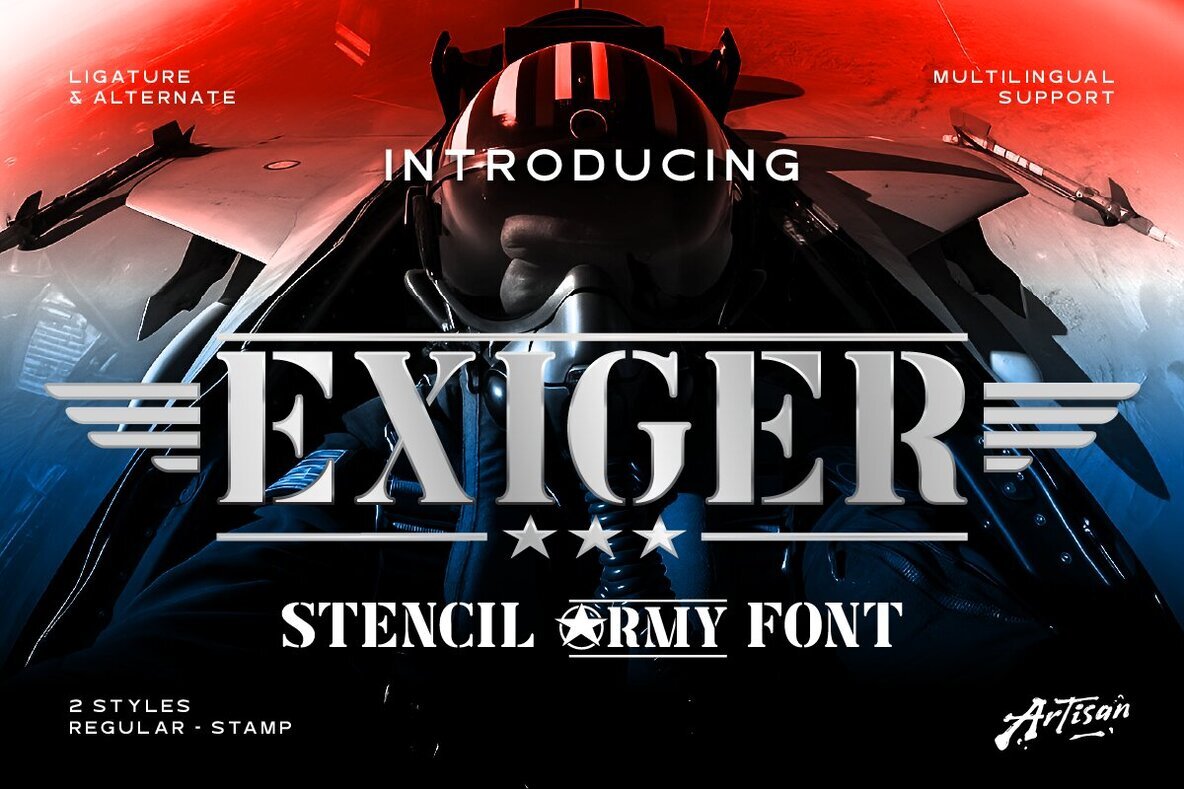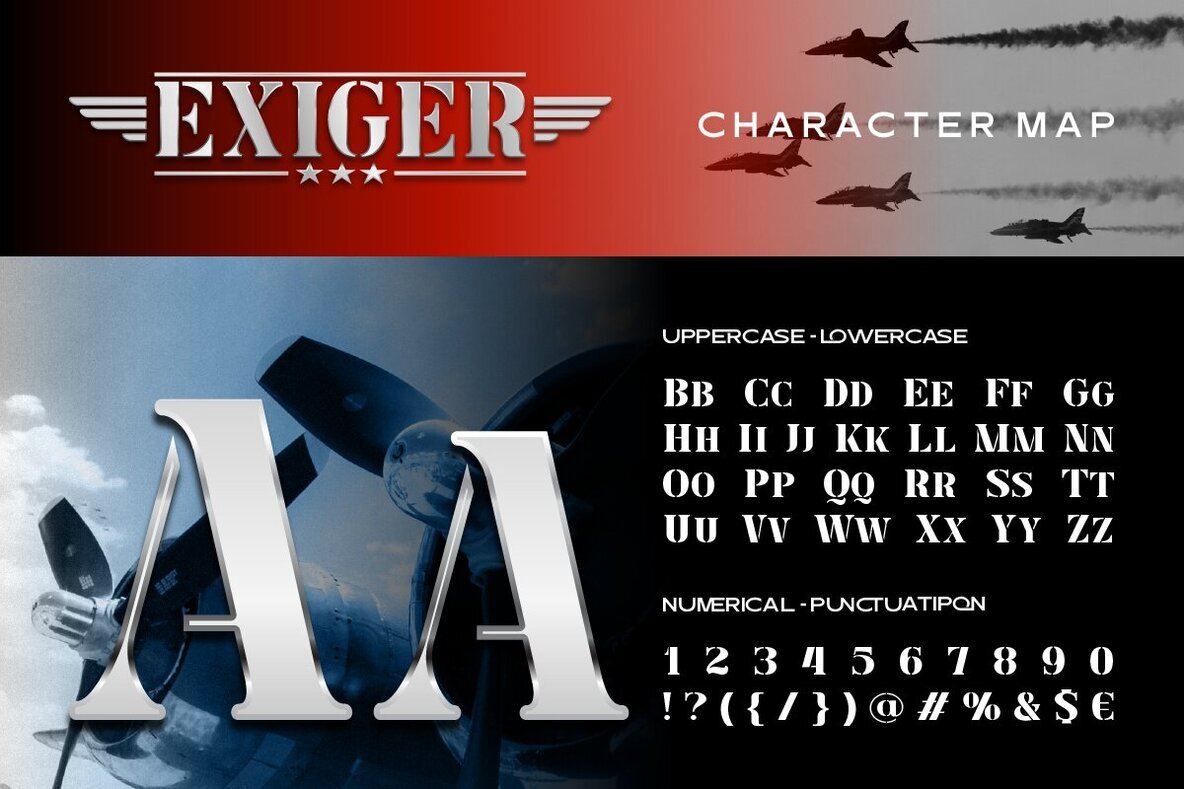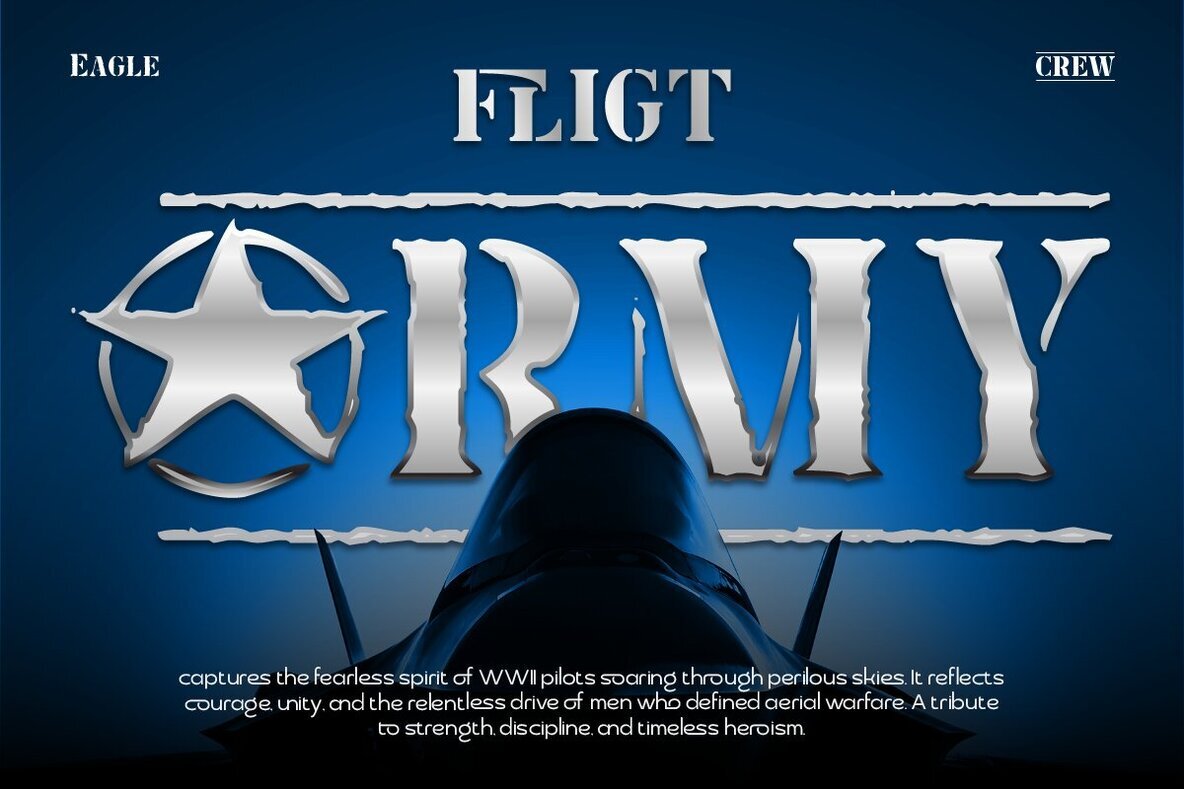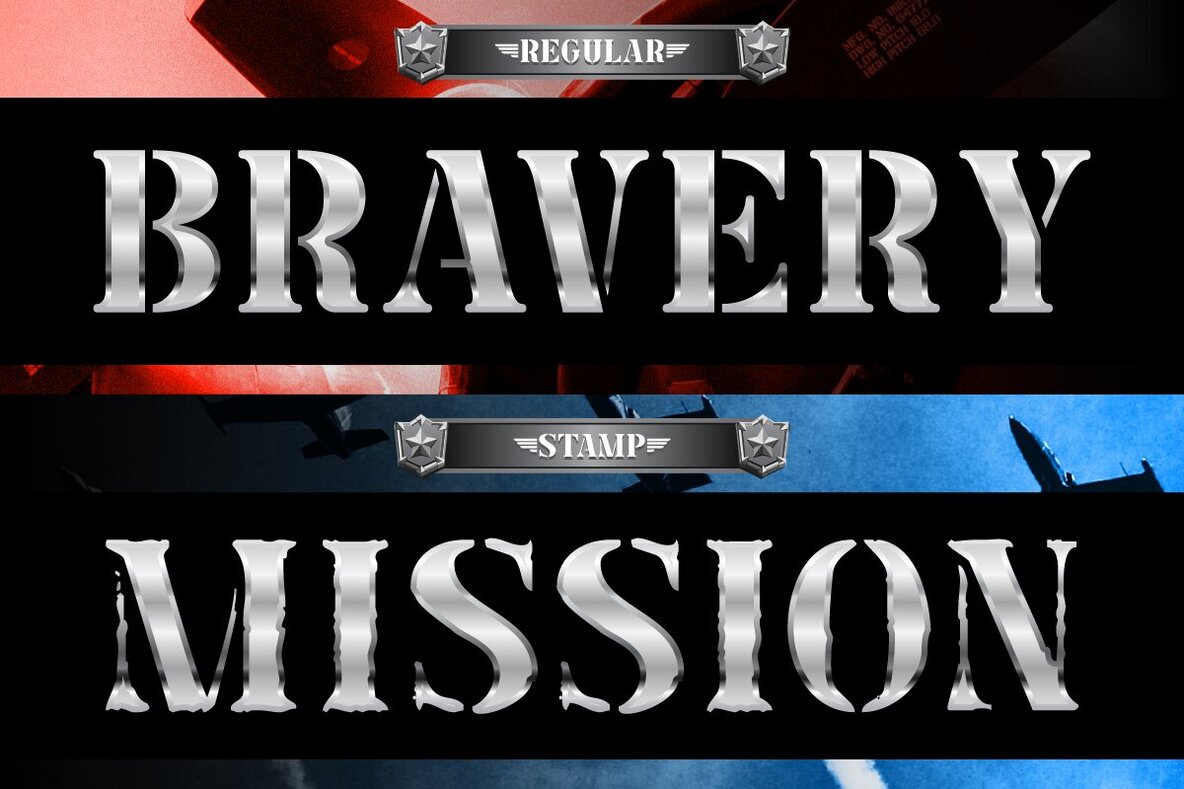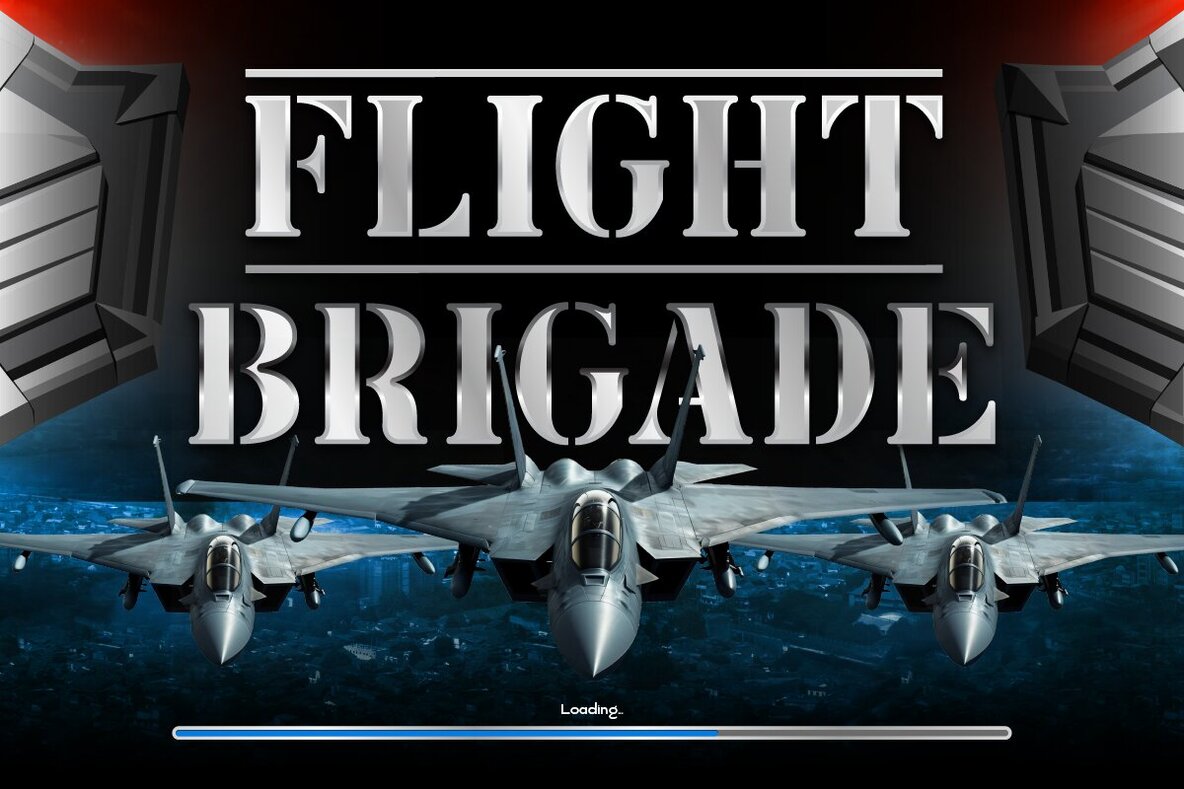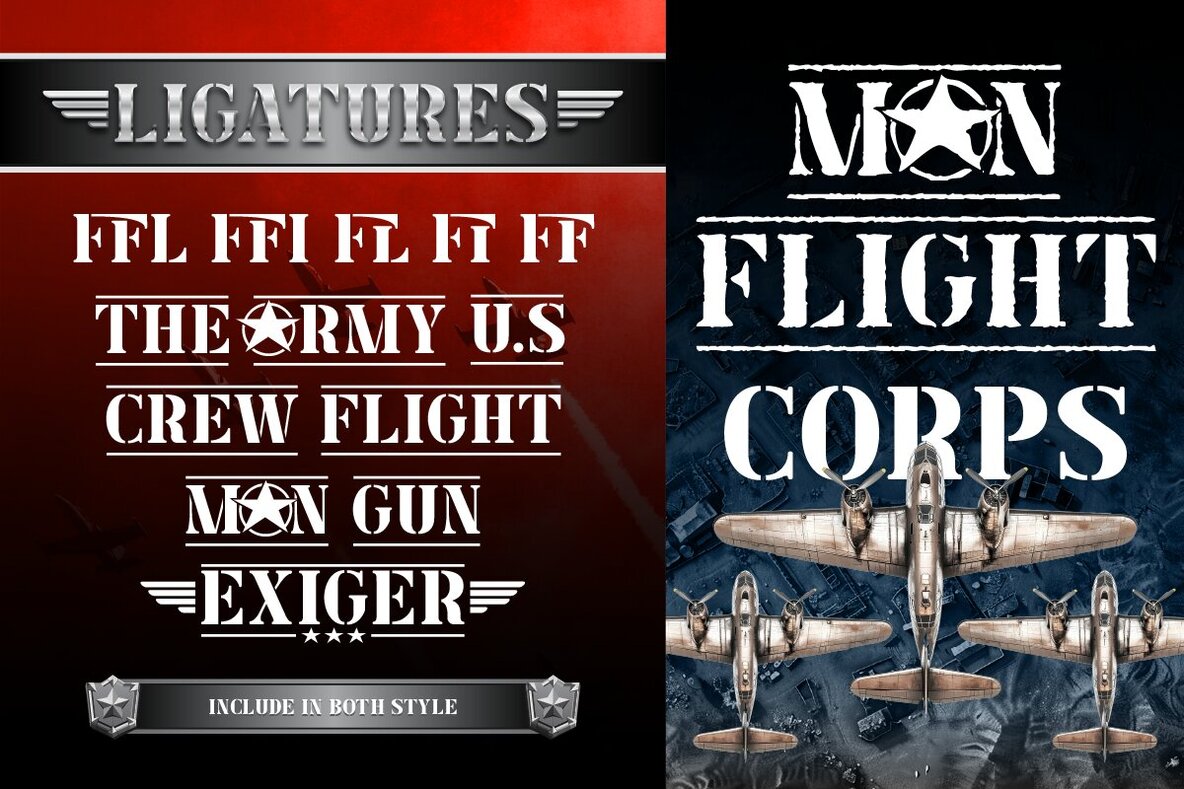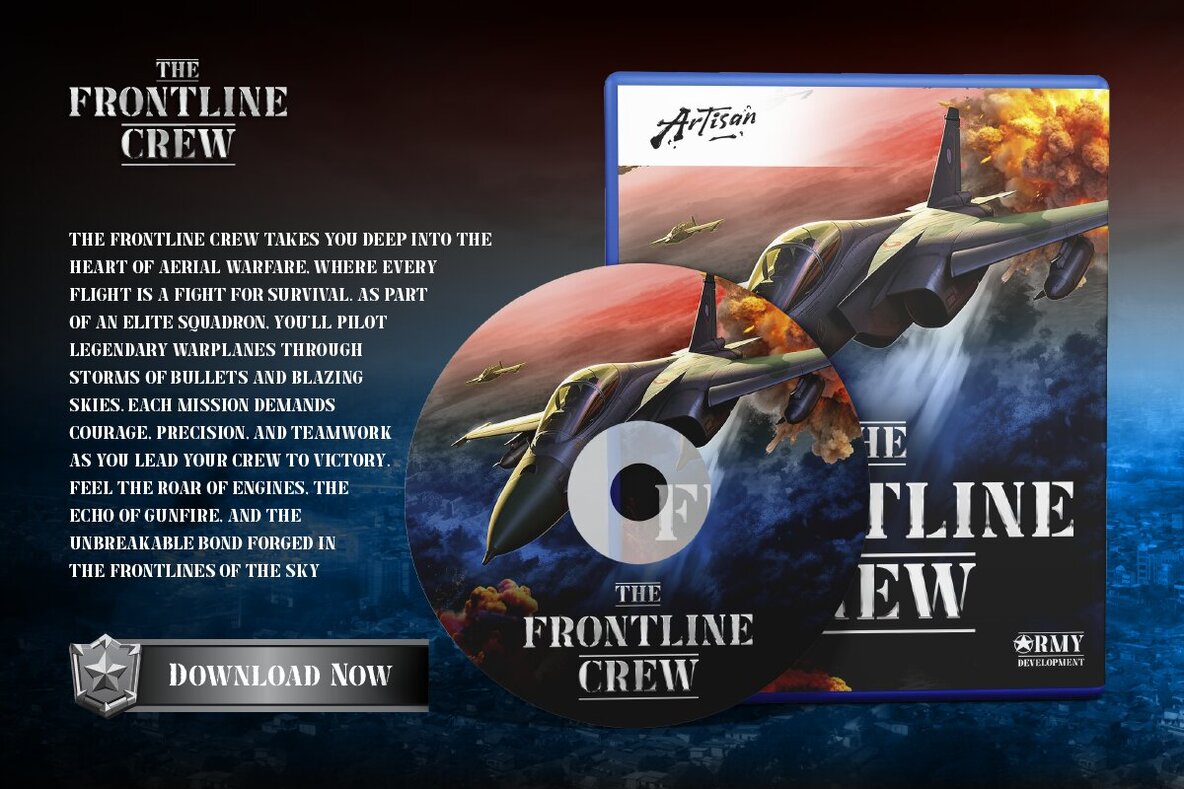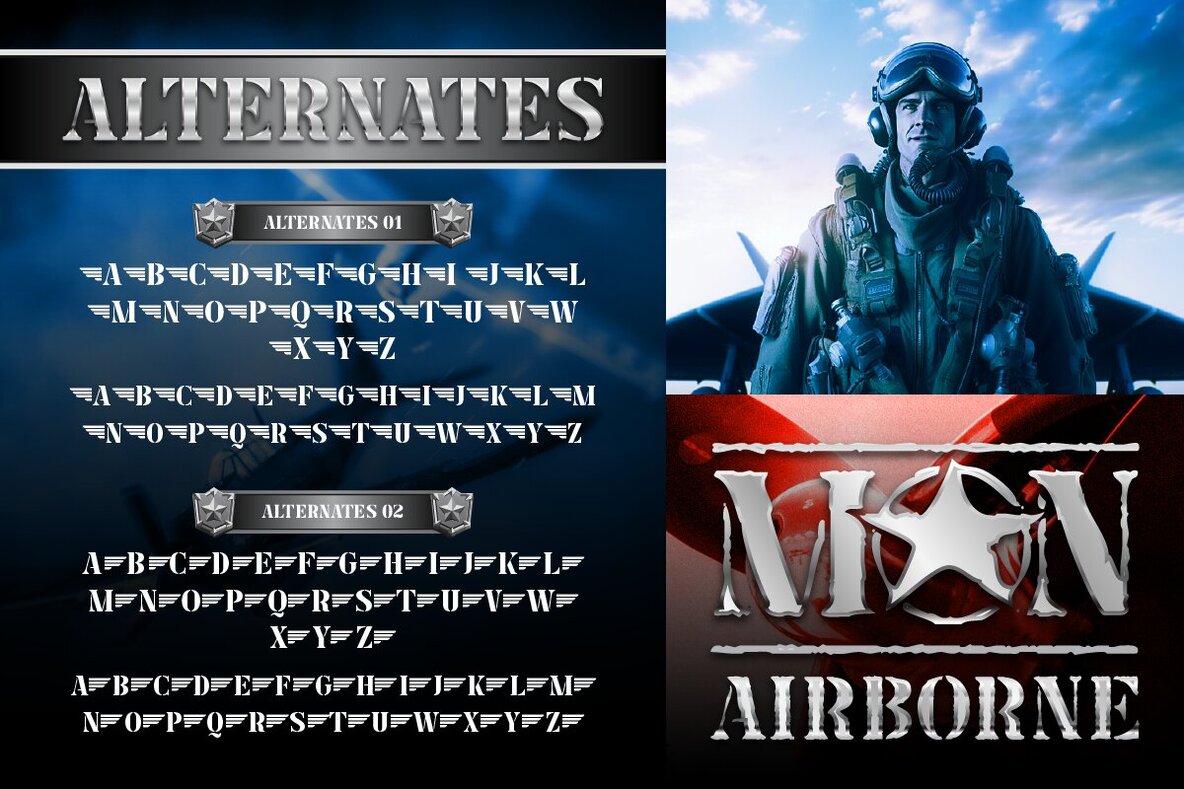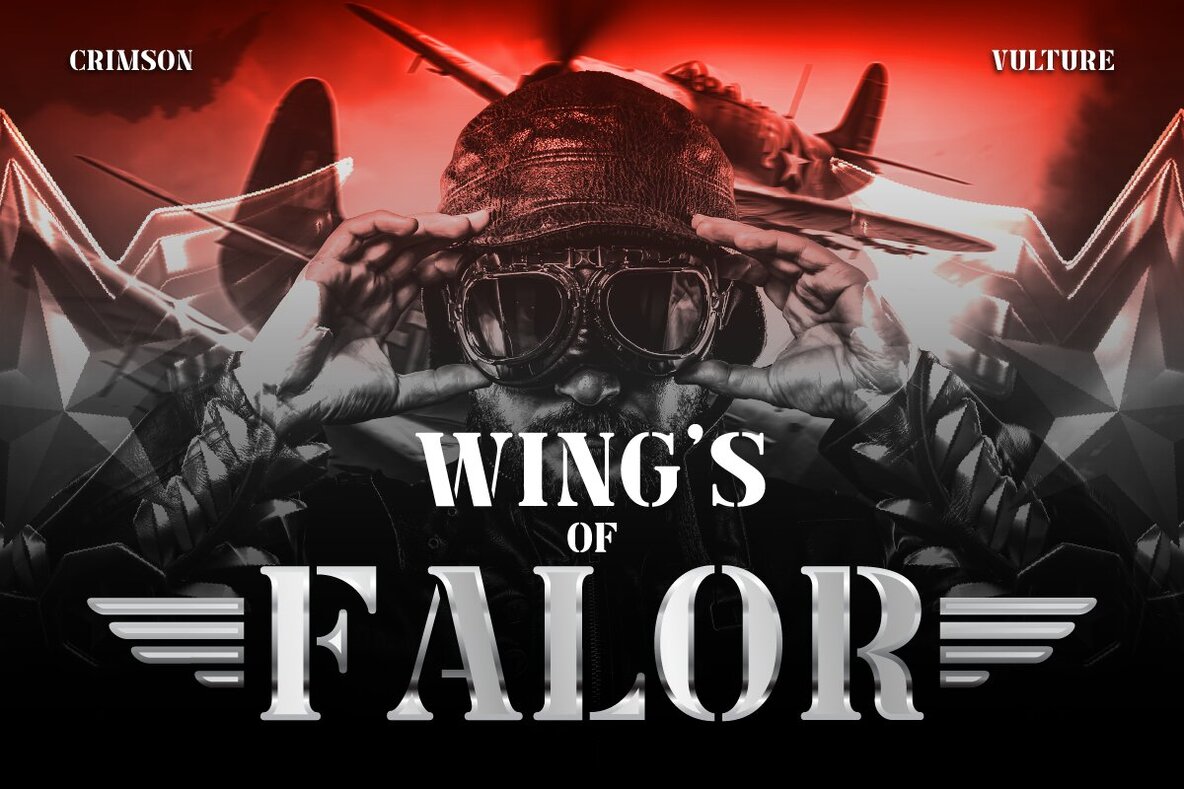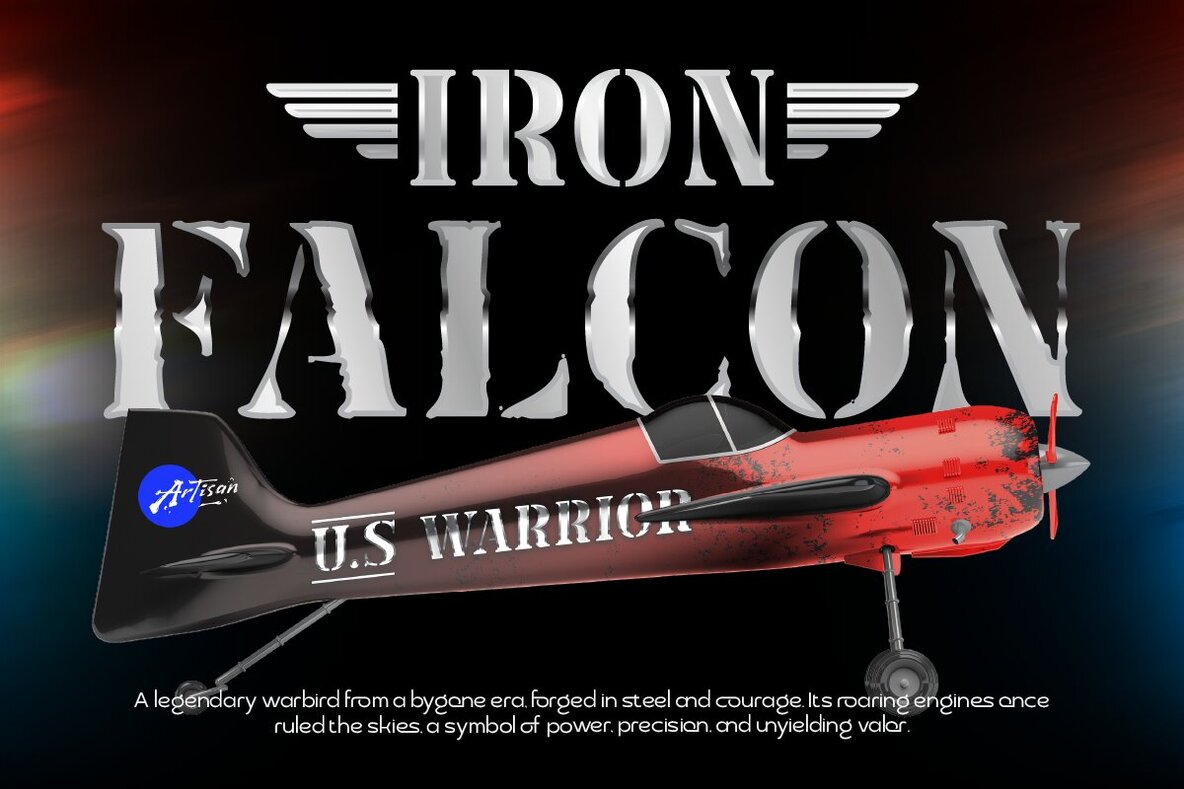
Exiger Font
Exiger Regular
Exiger Stamp
Exiger draws inspiration from the markings of fighter jets, ammunition crates, and tactical aircraft panels. Every character features sharp, precise lines and authentic stencil details. This font brings unmistakable military presence to any design. With its blend of accuracy and attitude, Exiger is built for designers who demand authentic, military-inspired typography.Exiger: Military Stencil Font
Ideal for aviation posters, tactical game interfaces, war-themed branding, and rugged graphics, Exiger sets a fearless, commanding tone. Use it where strong visual authority and clarity are needed.Font Styles